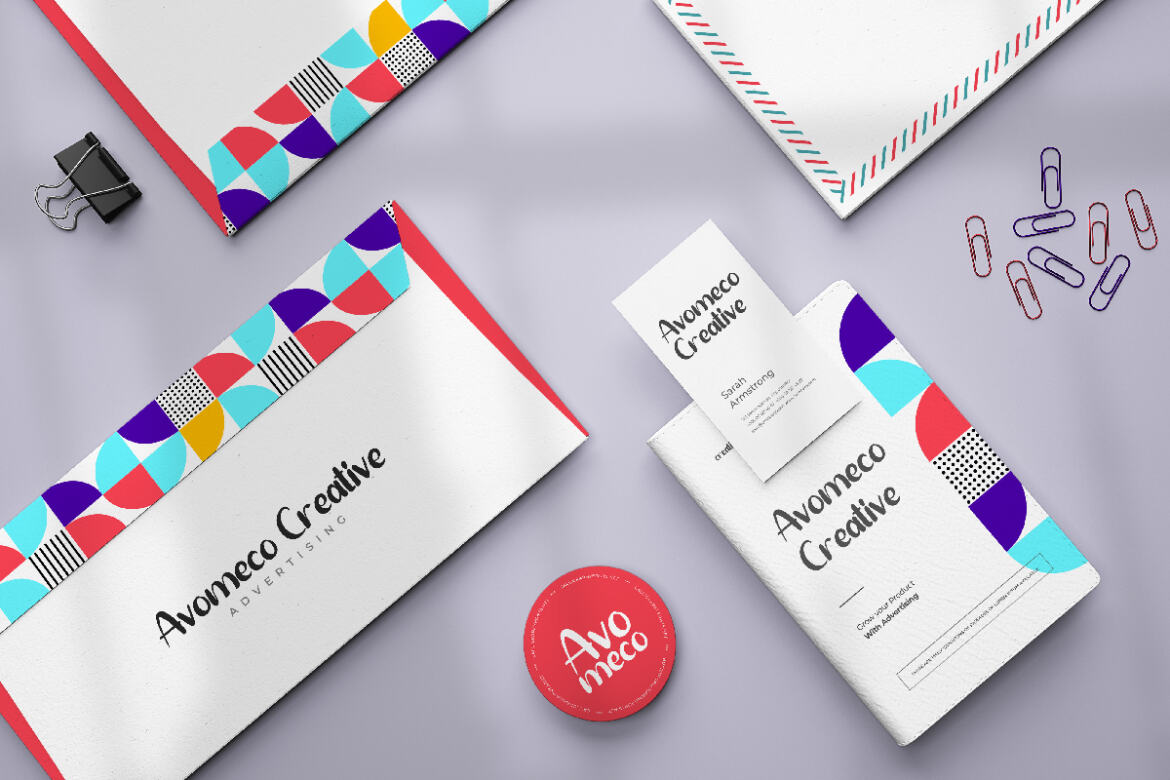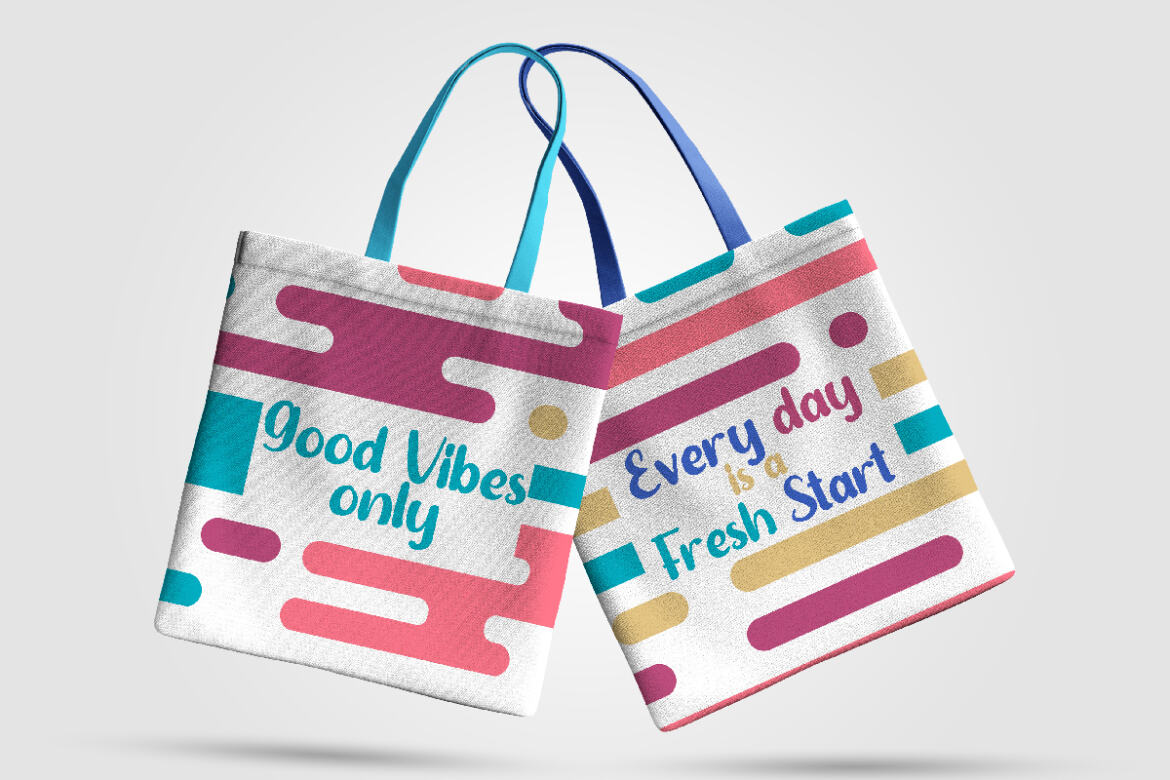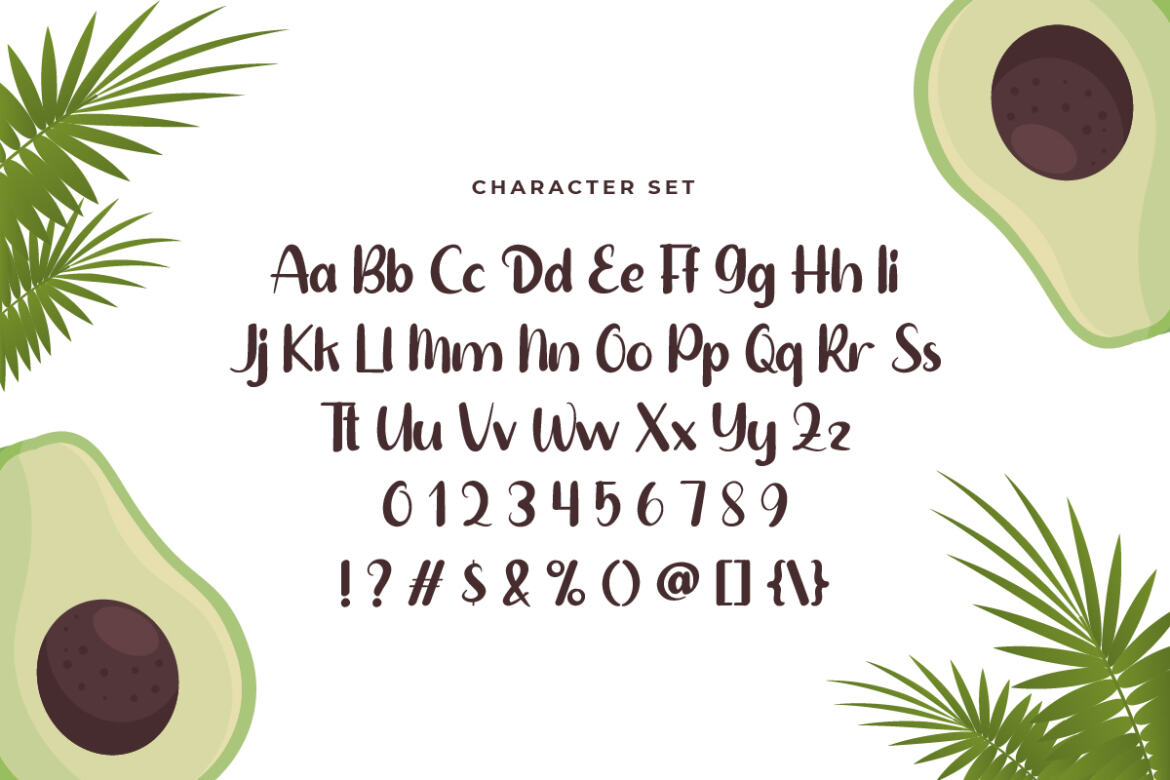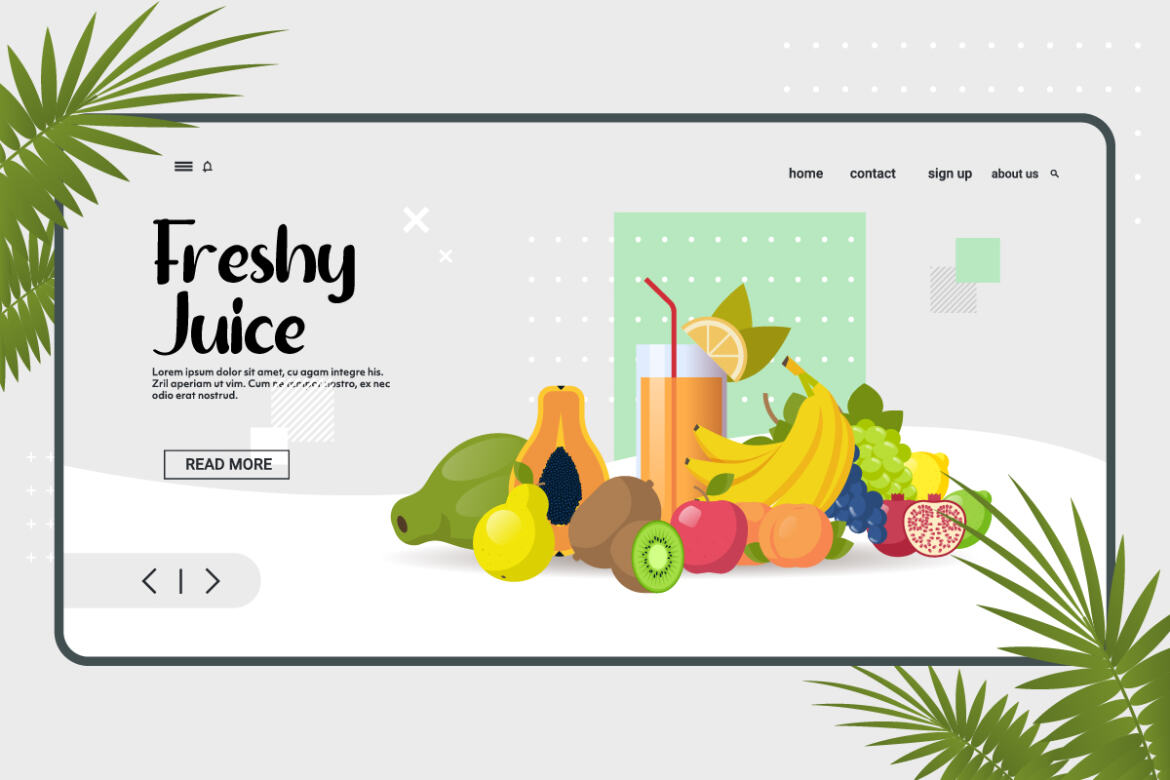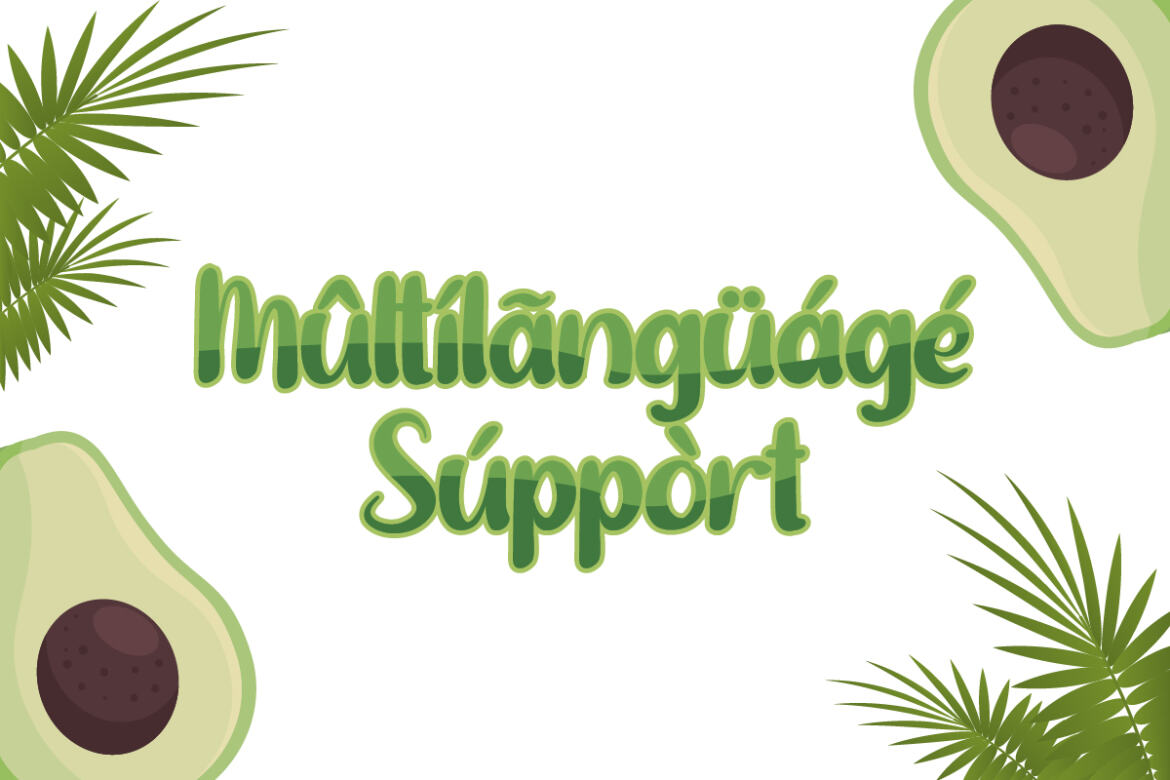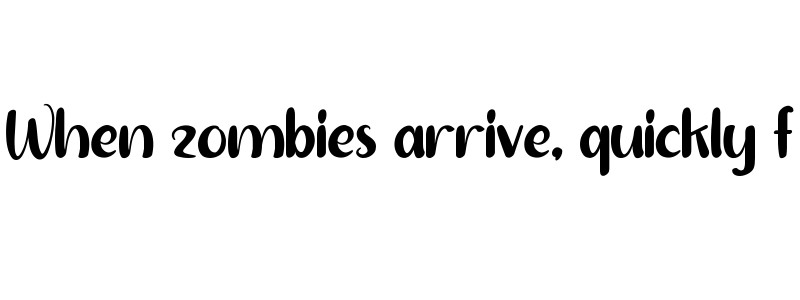
Avocado Diet
Avocado Diet Font  is a display sans serif display font family with stylish style. The font is inspired from the food industry and fresh market. It will be great for logo, brandings, headlines etc. The font will suit many industries including cafe/restaurant, fashion, music, etc Avocado Diet Font come with unique letters so you can standout and use it for branding, menu, flyer, promotions tec. Here’s what you’ll get on the package :